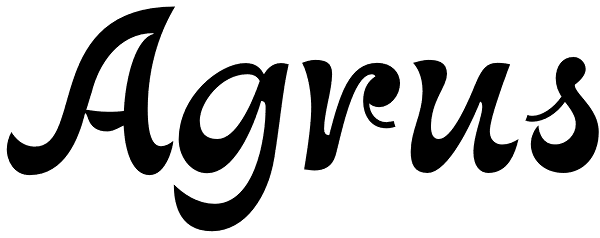
ALS Agrus
"Agrus" in Ukrainian means "gooseberry". The letters are rounded like the berries and the sharp end elements remind of the barbs. In fact, the font is an intricate italic type. Optical compensations are purely decorative and rhyme with thin...